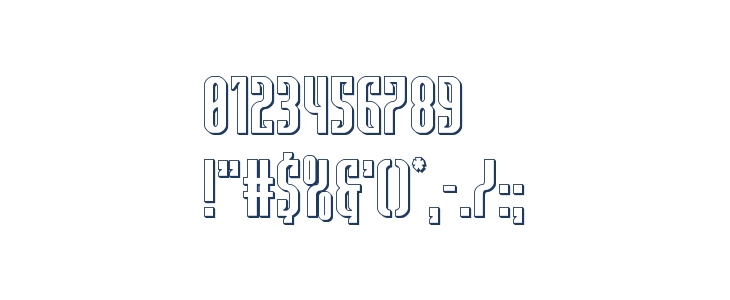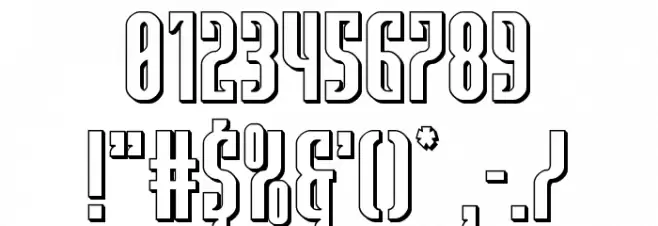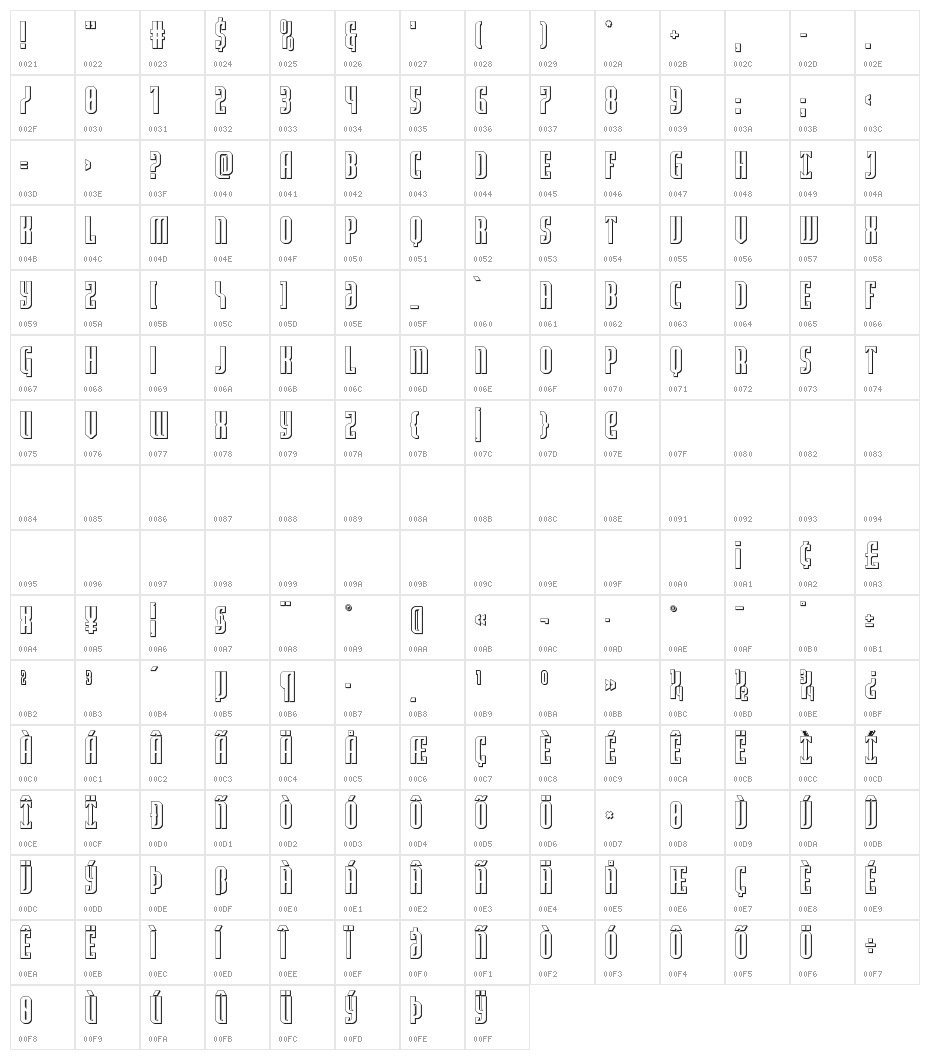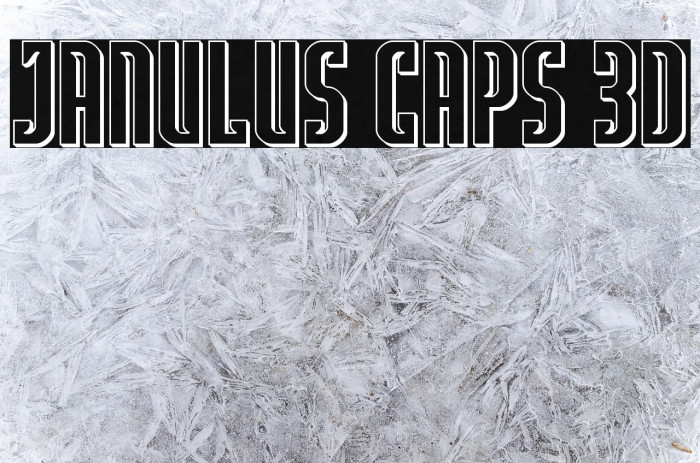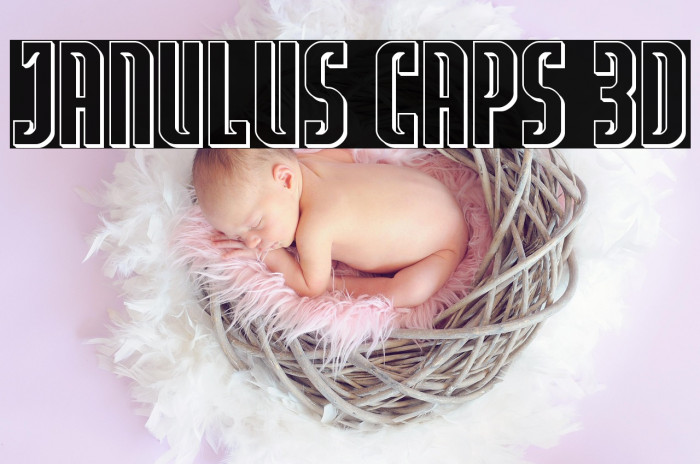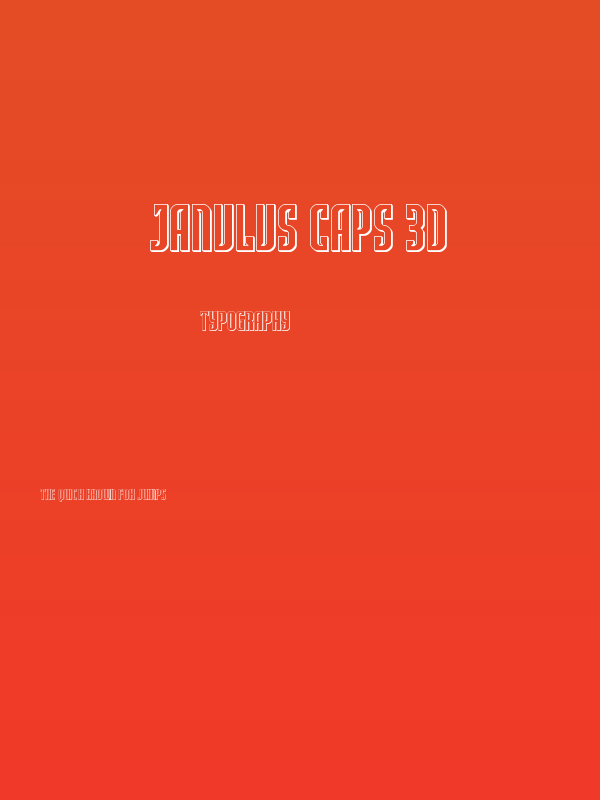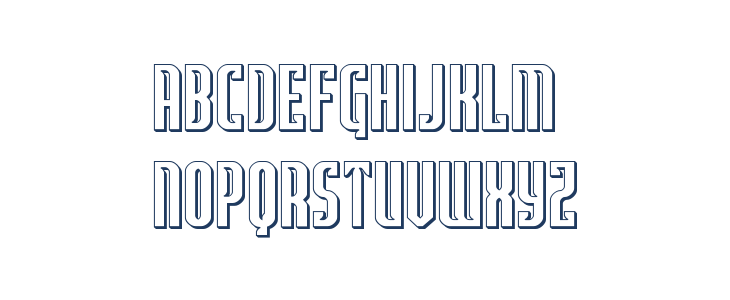
Janulus Caps 3D Font
Janulus Caps 3D Description
This font features a bold, three-dimensional style with a strong presence. The characters are outlined, creating a shadow effect that adds depth and a sense of movement. The uppercase letters are uniform in height, with sharp angles and clean lines that give a modern and futuristic feel. The numbers and special characters maintain the same bold outline, ensuring consistency across all elements. This font is ideal for making a statement, with its eye-catching design and dynamic appearance.